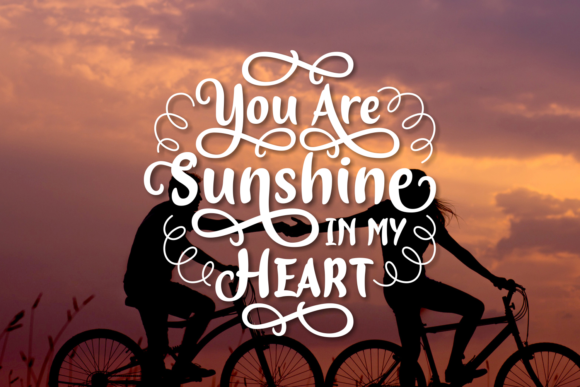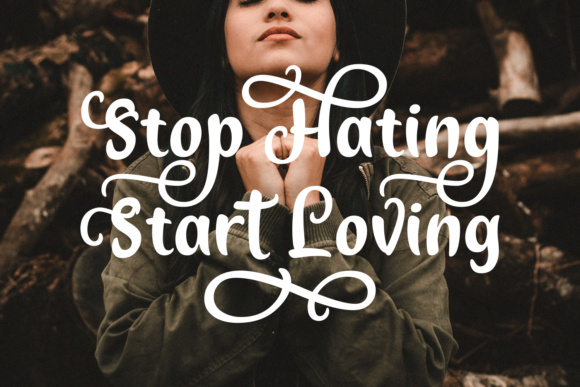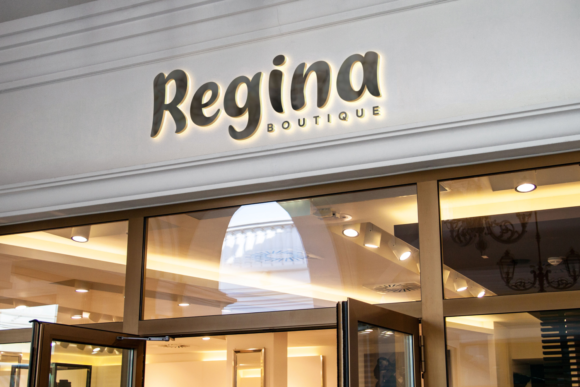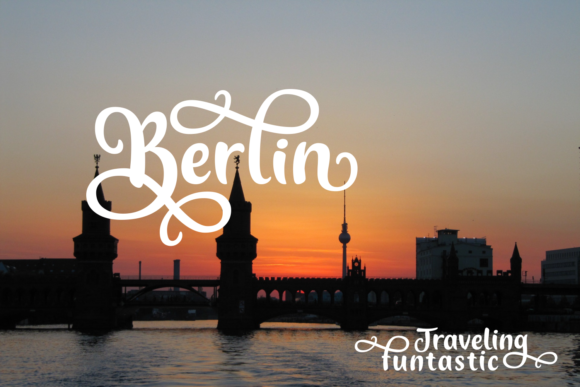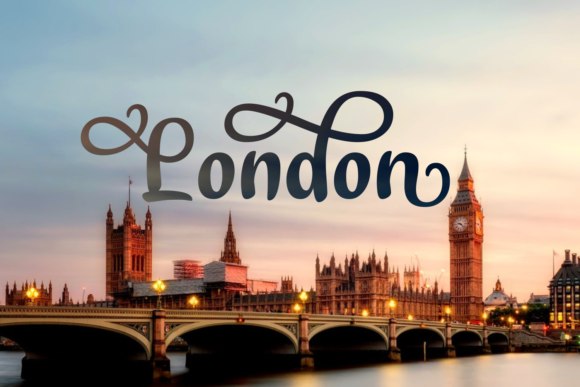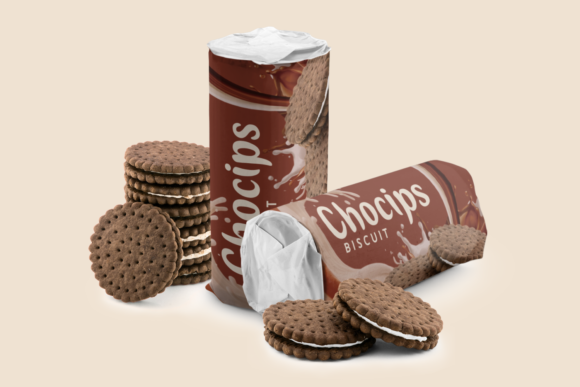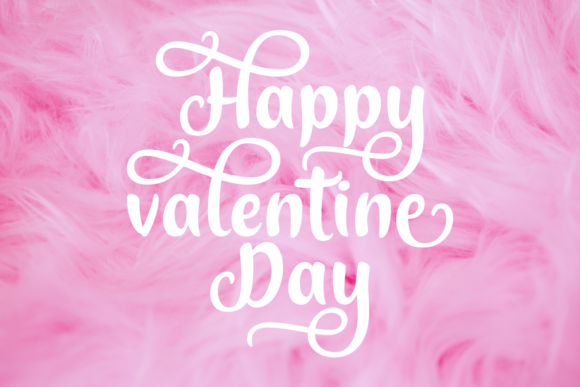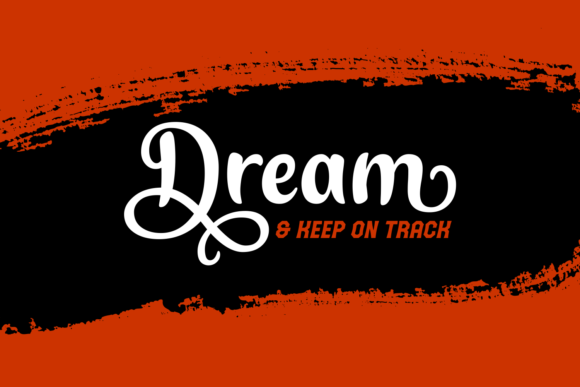
Hopia Font
About Hopia Font
The Hopia is a beautiful calligraphy font. It includes lots of elegant swashes on the upper and lower case letters.
Use The Hopia to create luxurious designs with an upscale and chic touch.